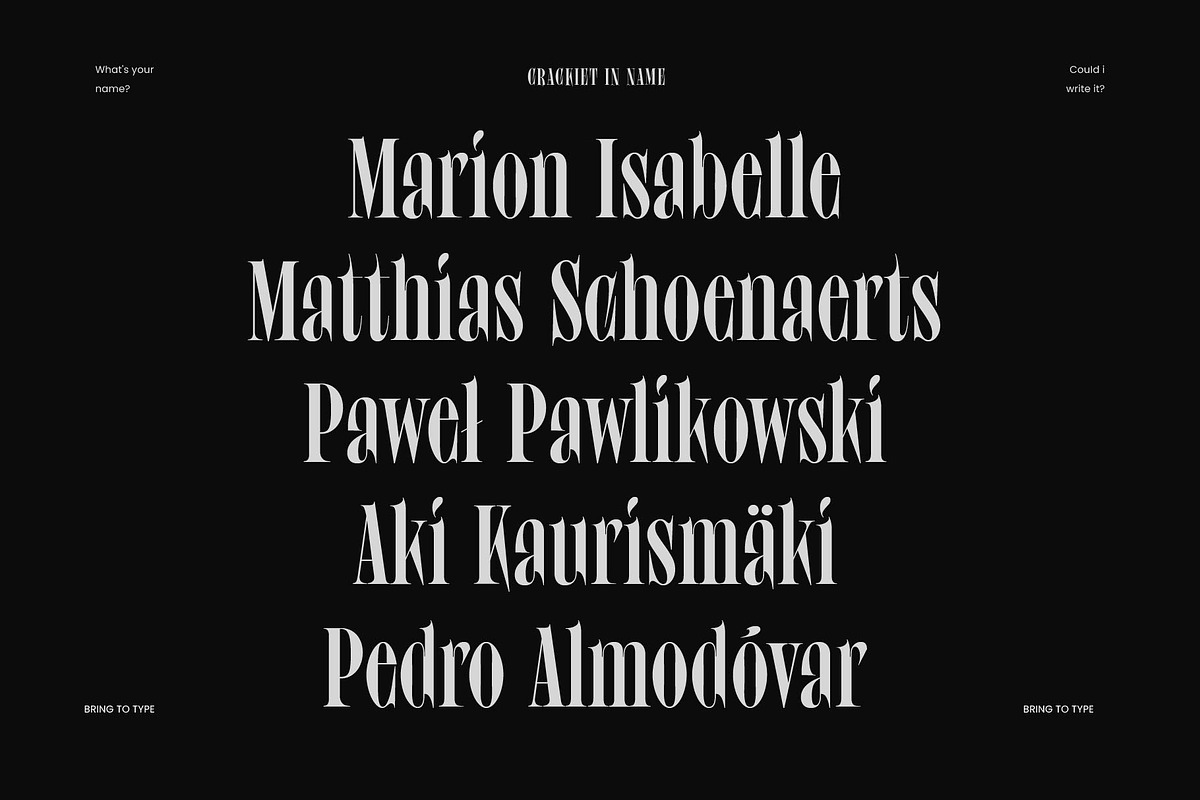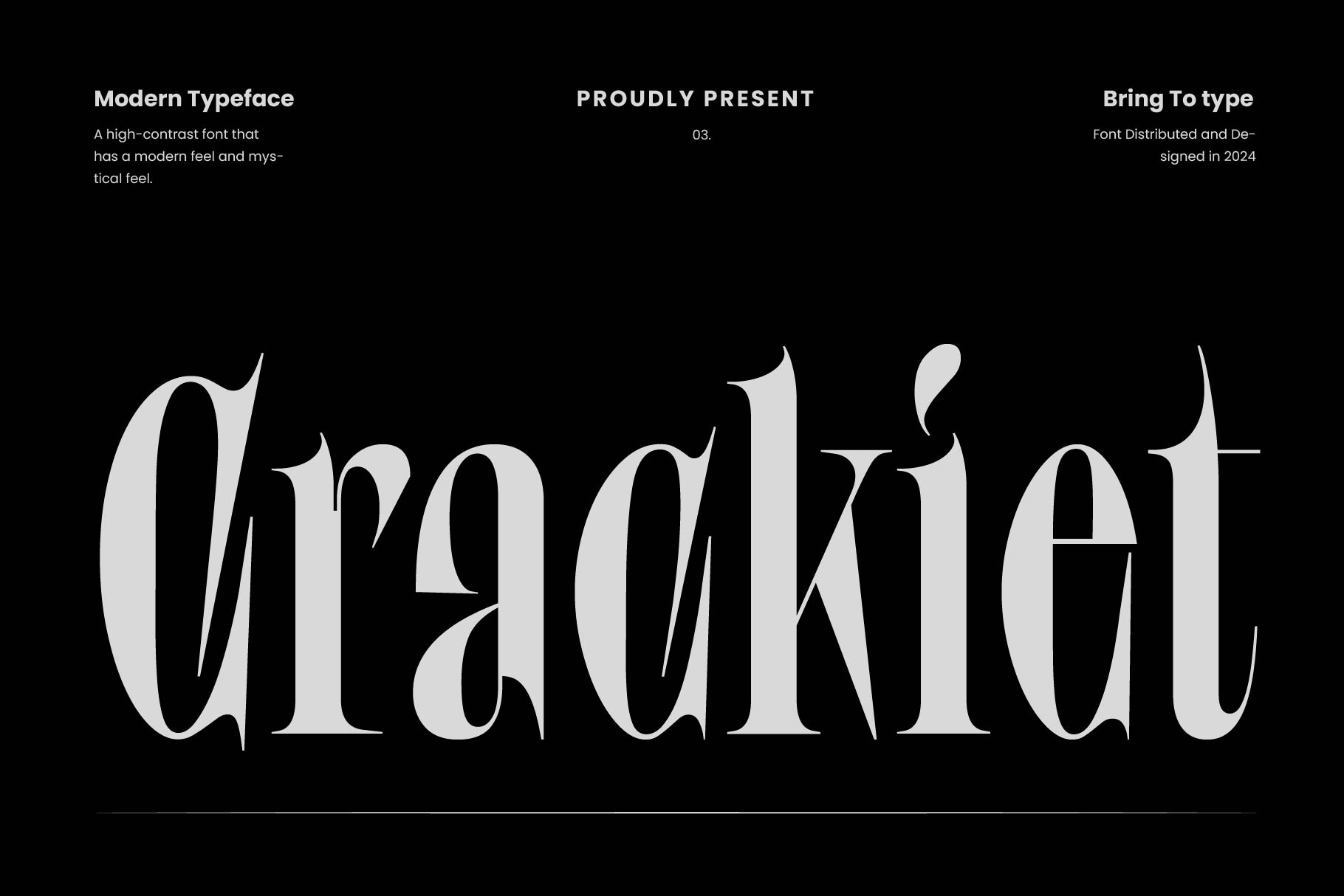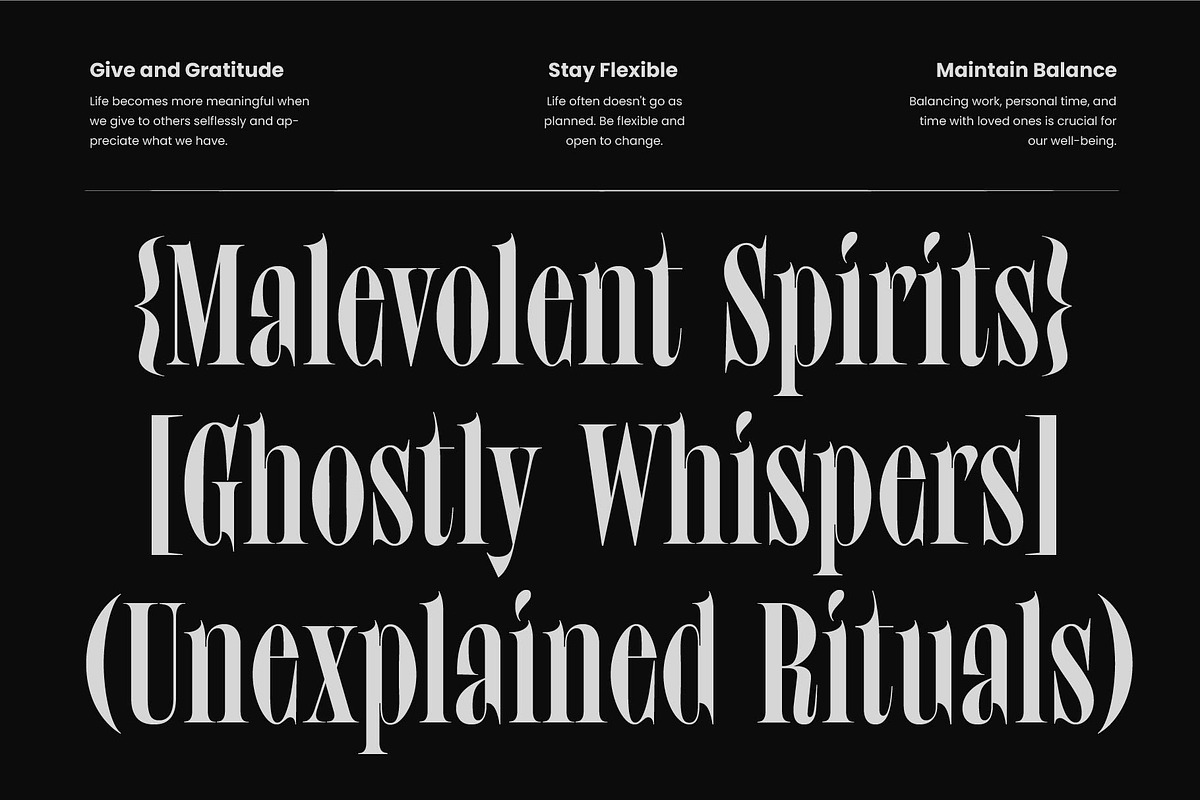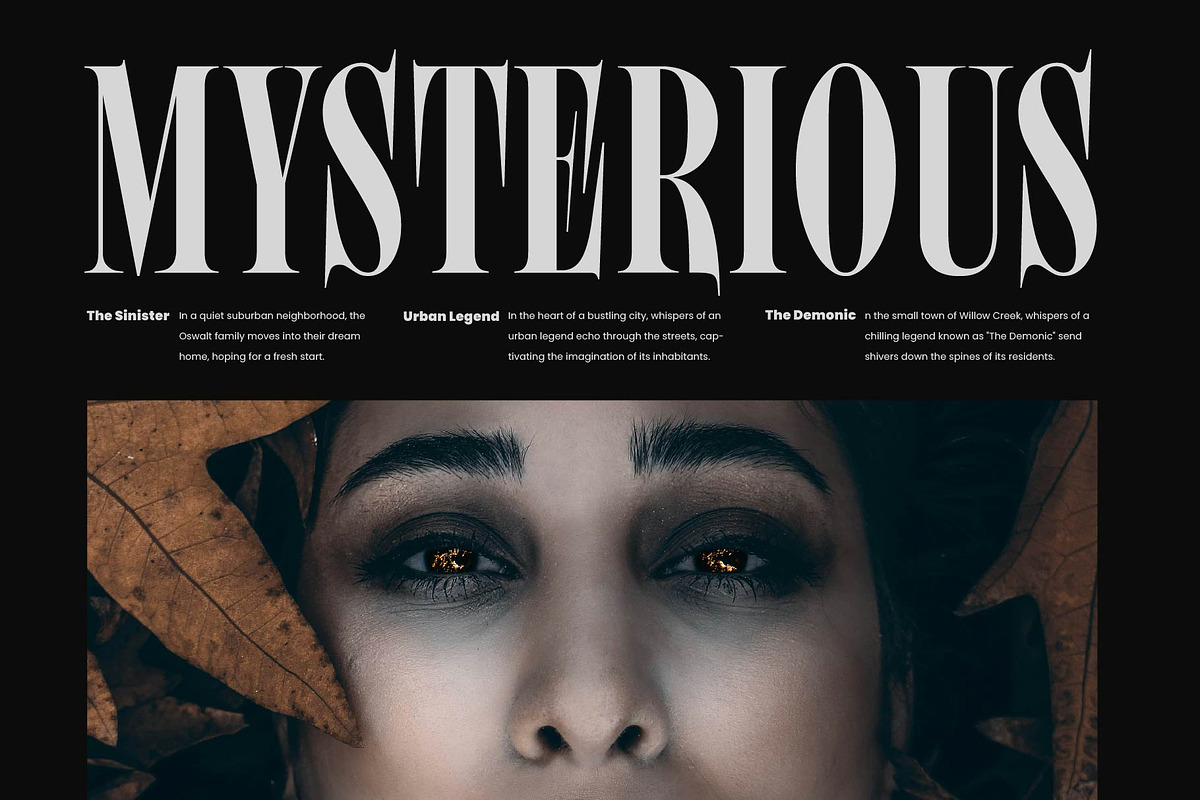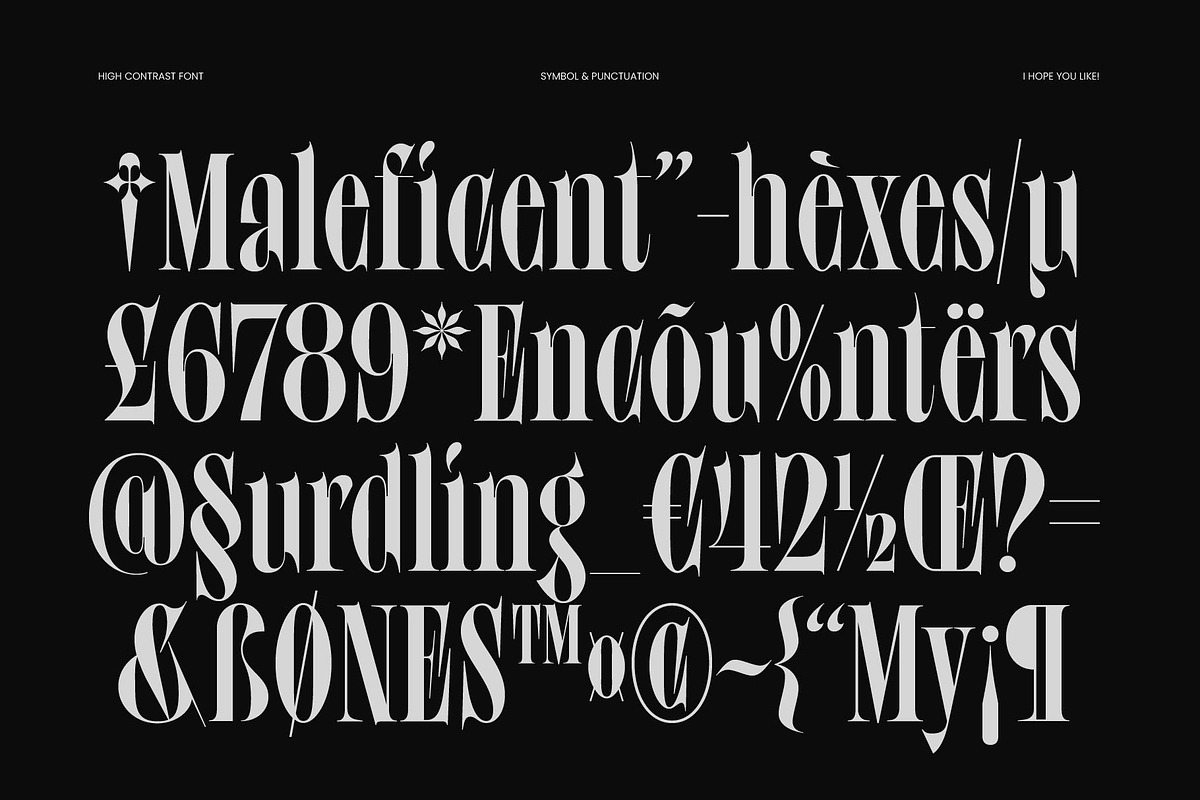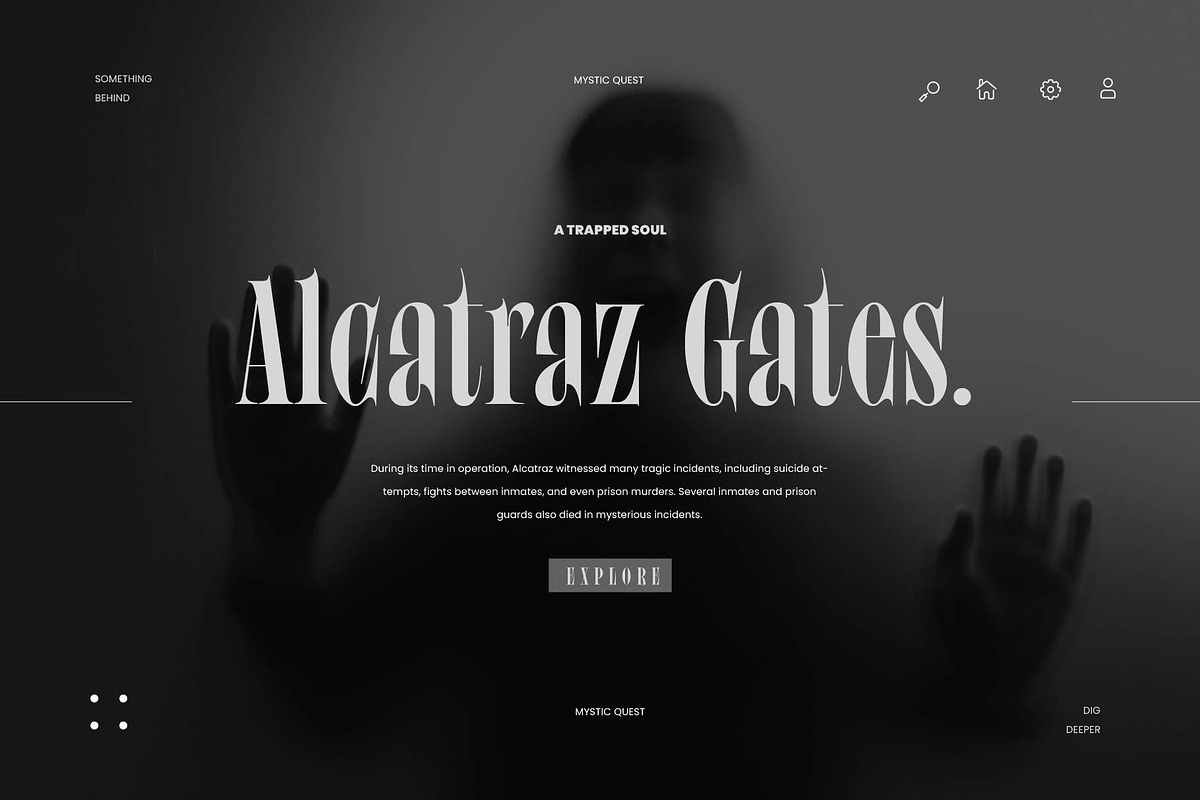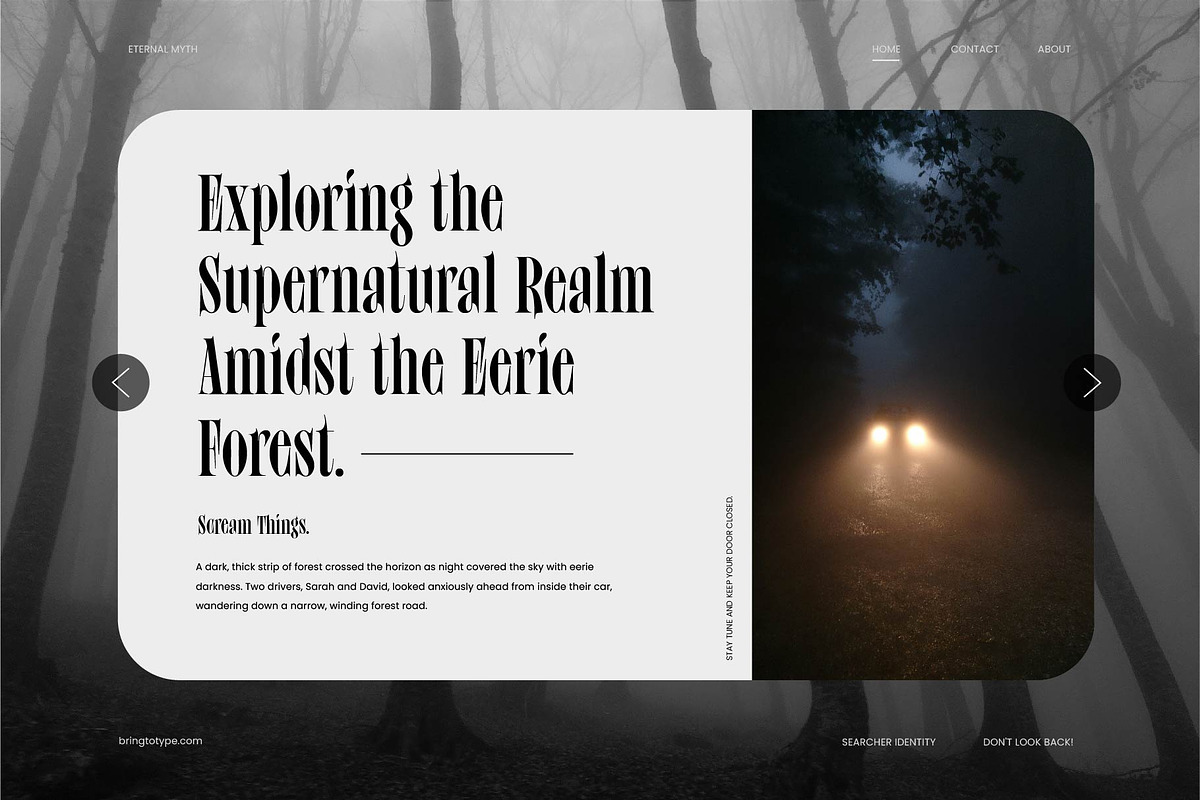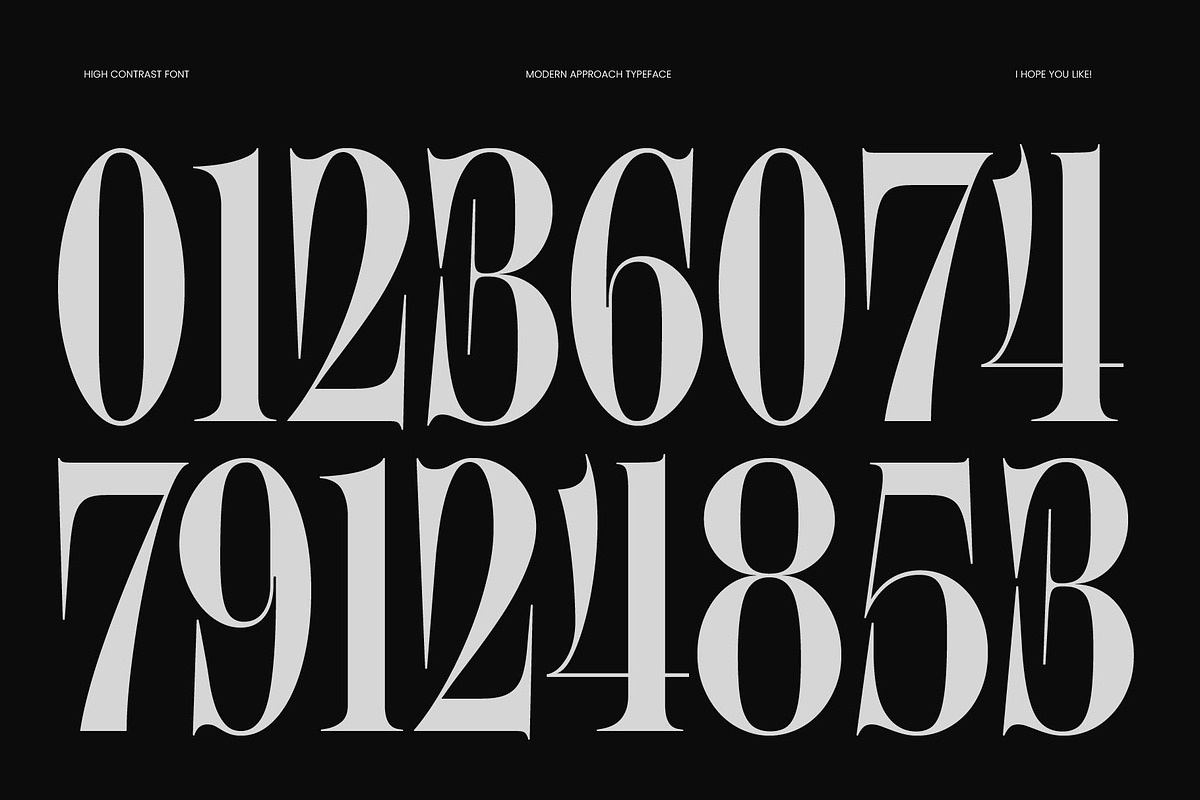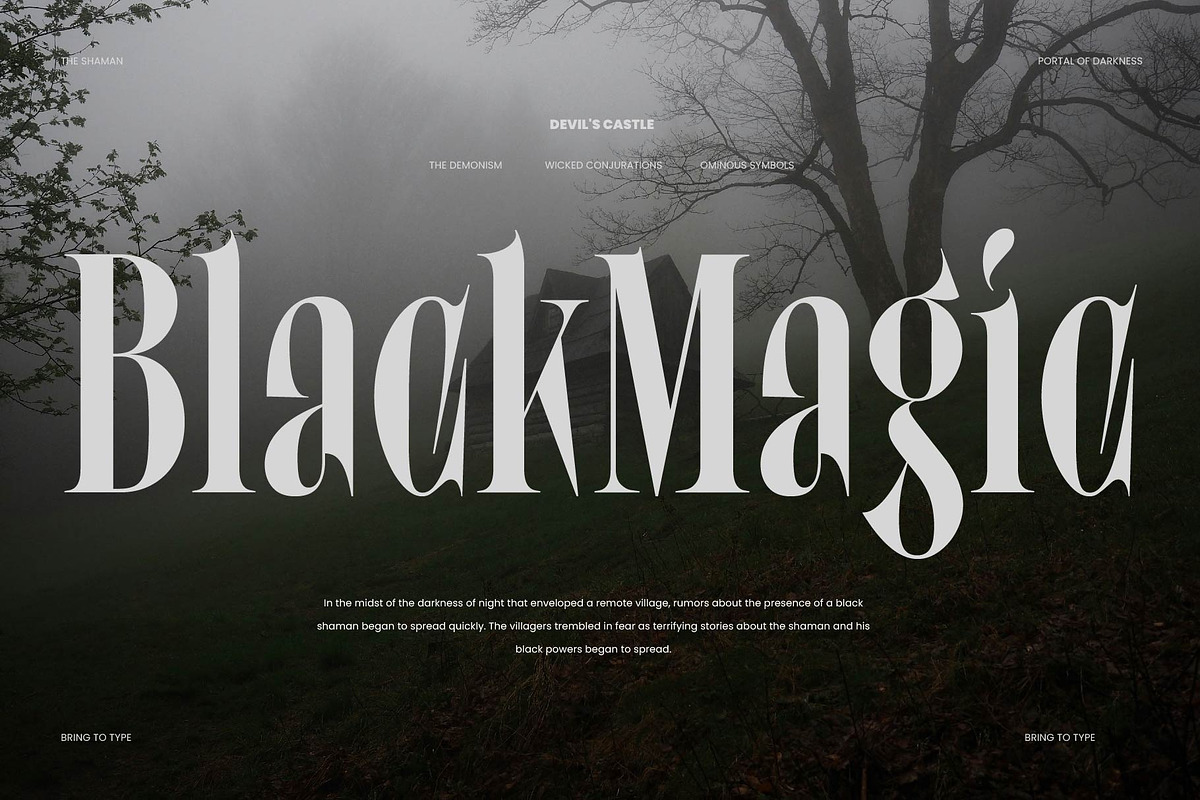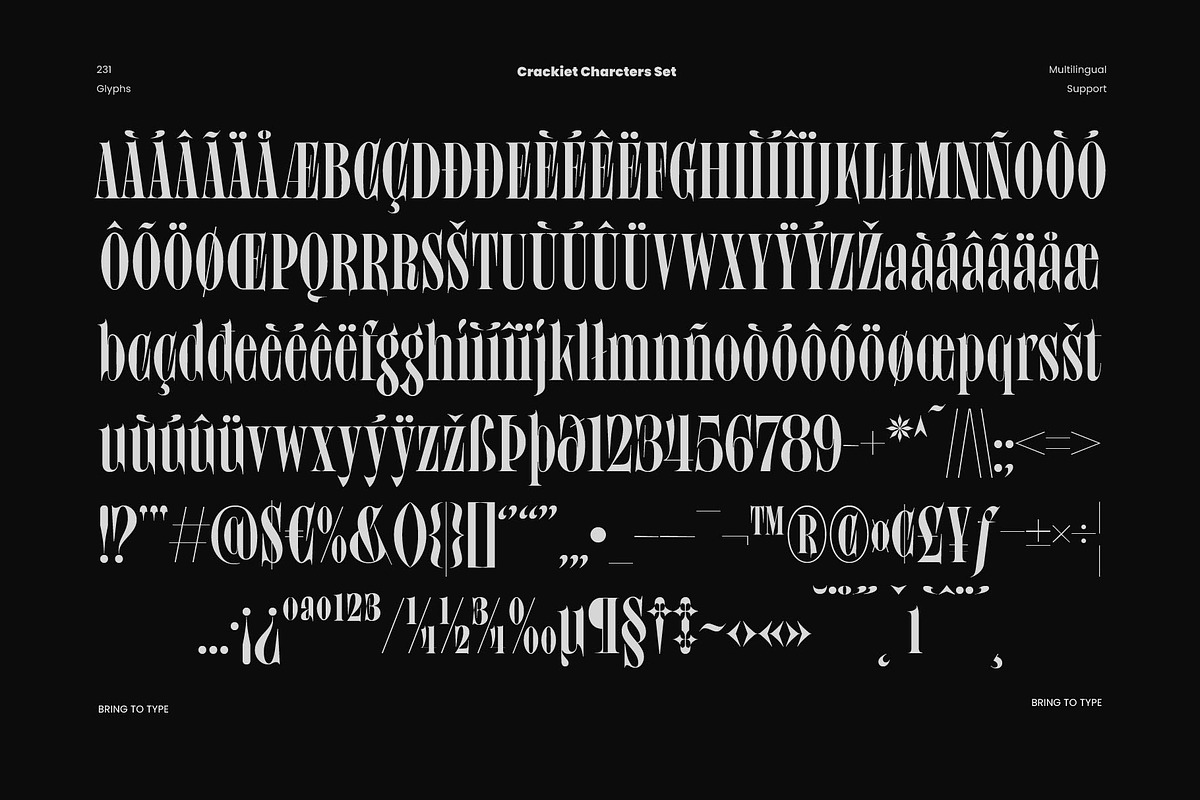
Crackiet - Modern Condensed Font
the hallmark of Crackiet font style is the sharp, extreme curves at each terminal, which give the font a Bold, Angry personality. Modern vibes add an extra layer of visual appeal to this font.
Symbols & Punctuation